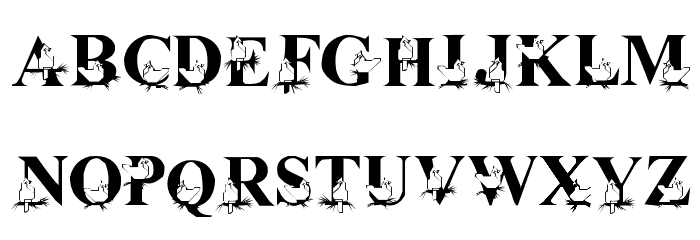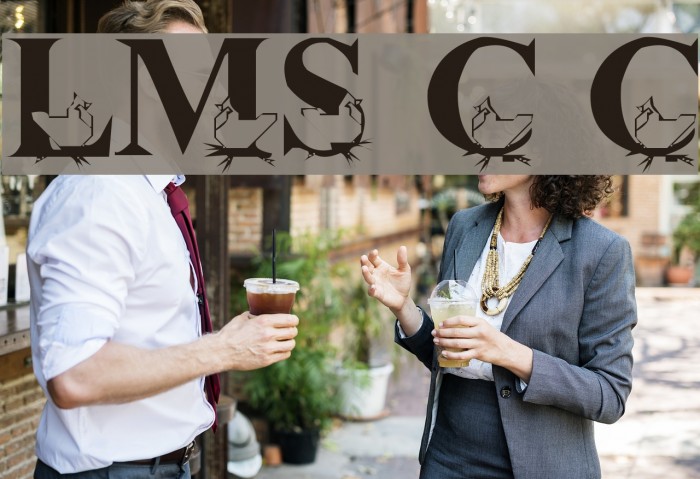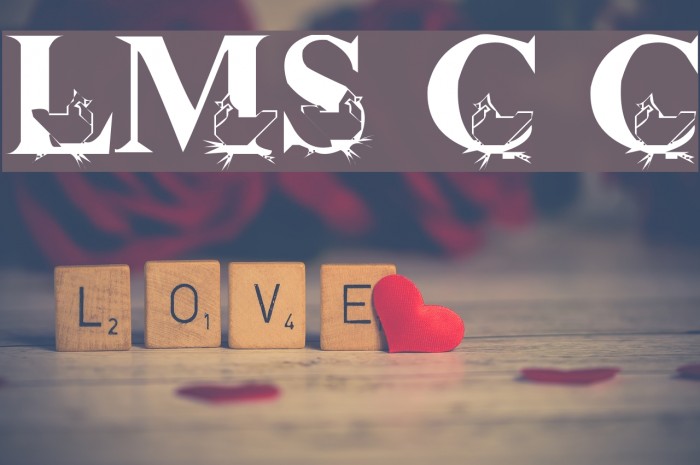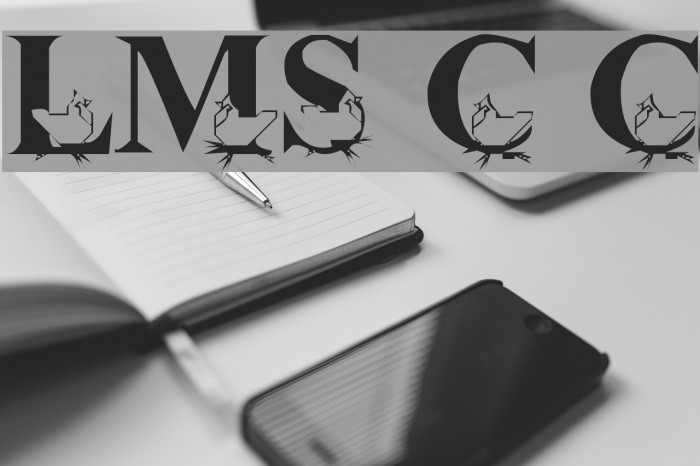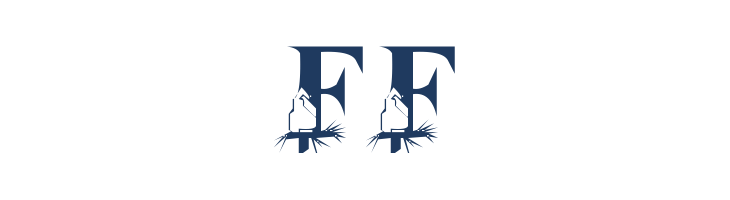
LMS Christmas Cardinals Font
This decorative font features bold, uppercase letters adorned with intricate cardinal bird illustrations. The design integrates the birds seamlessly into the letterforms, creating a festive and whimsical appearance. The font's style is both playful and elegant, making it suitable for holiday-themed projects. The characters are well-defined with a strong presence, and the cardinal motifs add a unique touch that enhances the overall aesthetic. The font maintains a consistent weight and width throughout, ensuring readability while still offering a distinctive decorative flair.
A decorative font with bold letters and cardinal bird illustrations, perfect for festive designs.
- Proposed Projects: Ideal for holiday cards, festive invitations, seasonal branding, and decorative posters.